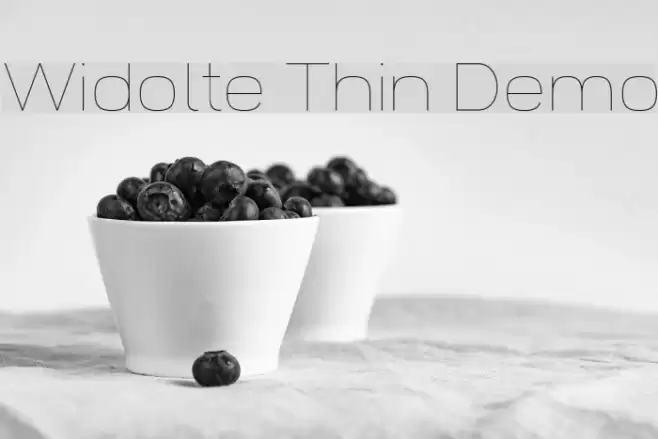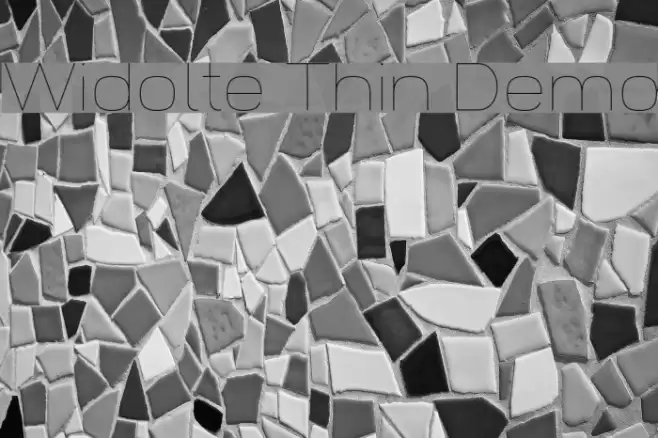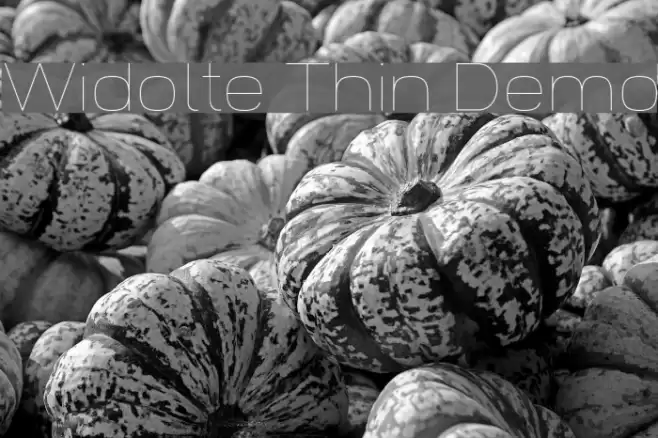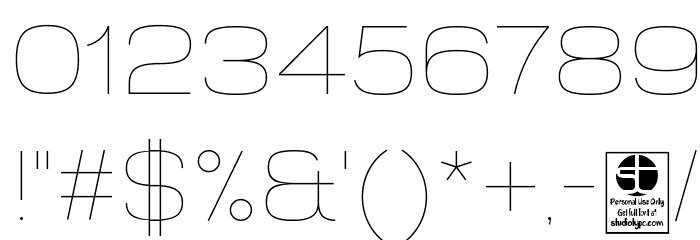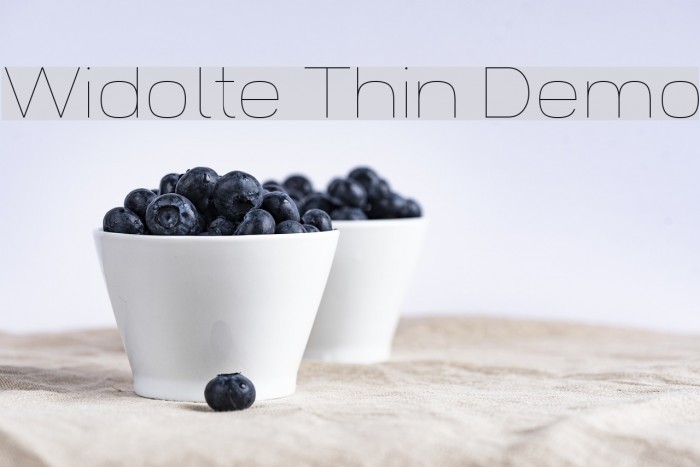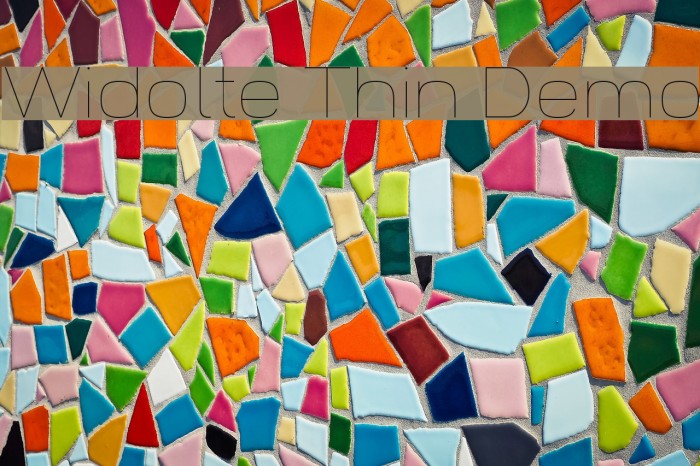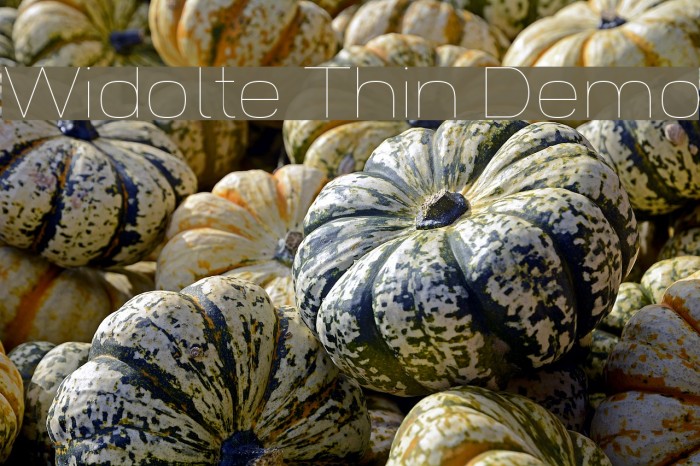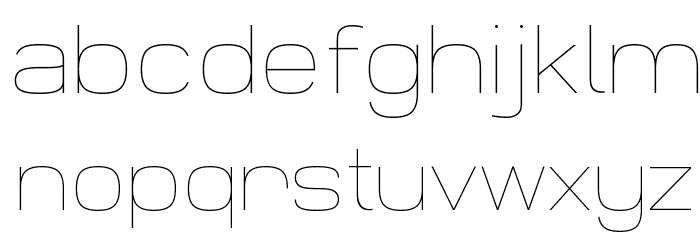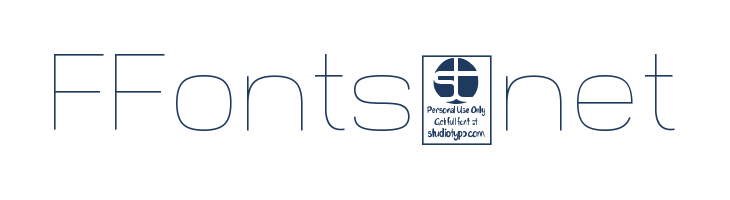
Widolte Thin Demo Font
Widolte Thin Demo Description
This font features a sleek, ultra-thin design with a modern aesthetic. The characters are crafted with precision, showcasing a geometric structure that emphasizes clarity and minimalism. The uppercase and lowercase letters maintain a consistent line weight, contributing to a harmonious and balanced appearance. The numerals and special characters are designed with the same attention to detail, ensuring uniformity across all glyphs. This font's simplicity and elegance make it suitable for contemporary design projects where a clean and sophisticated look is desired.